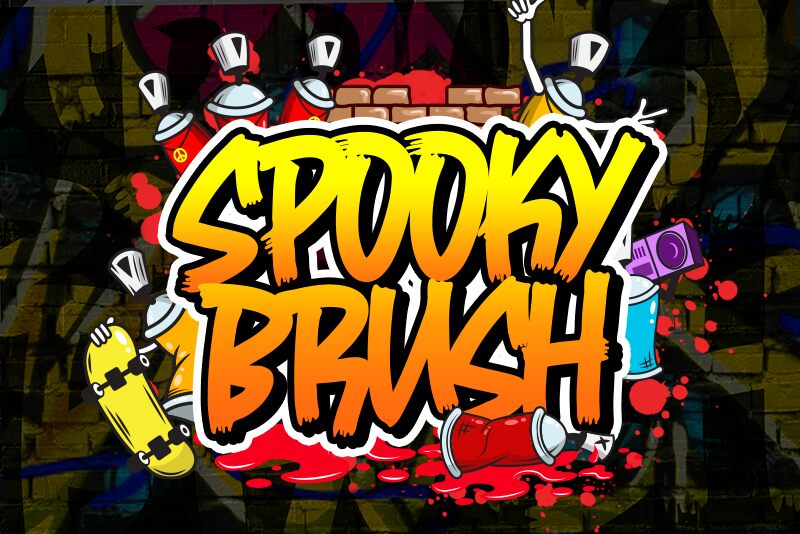
Spooky Brush is a narrow, light graffiti brush font designed by Beautype. It's perfect for creating an edgy, street-style look to any project. Use it for posters, flyers, logos and more!
Spooky Brush